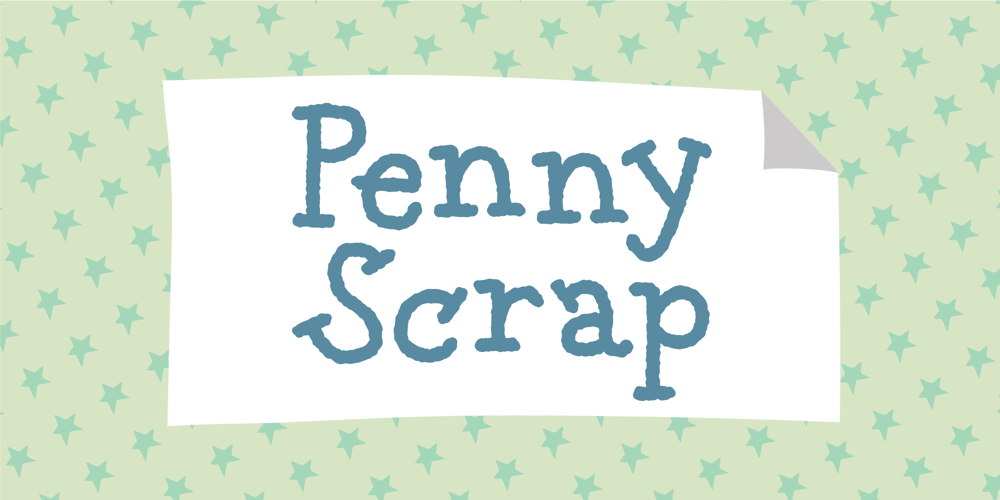
Penny Scrap
Penny Scrap font
Penny Scrap Font Family was designed by Jakob Fischer and published by PizzaDude.dk. Penny Scrap contains 2 styles and family package options. Penny Scrap is a lovely mix of a classic serif font and my loose handwriting and even a spoonful of a wacky typewriter!It was made with a slightly leaky pen, leaving quite rough edges – even though the font has its cute curves here and there!